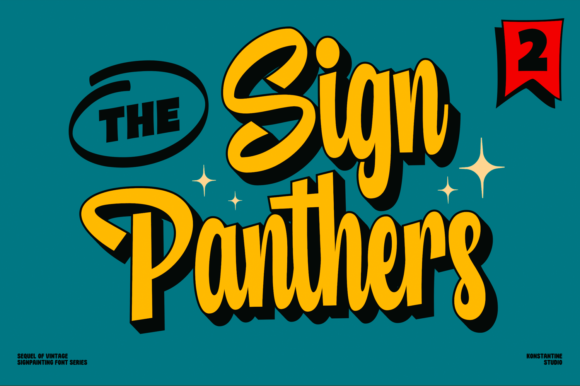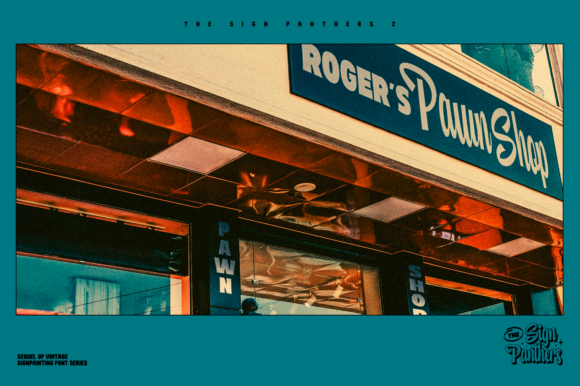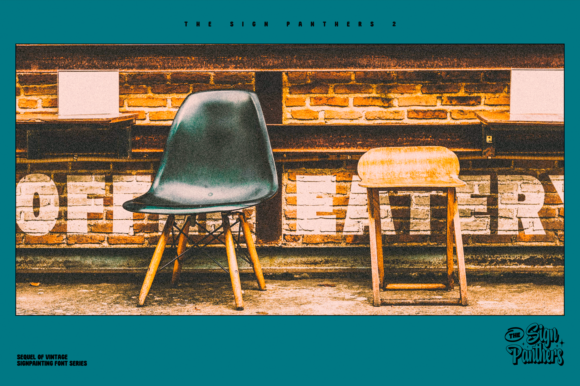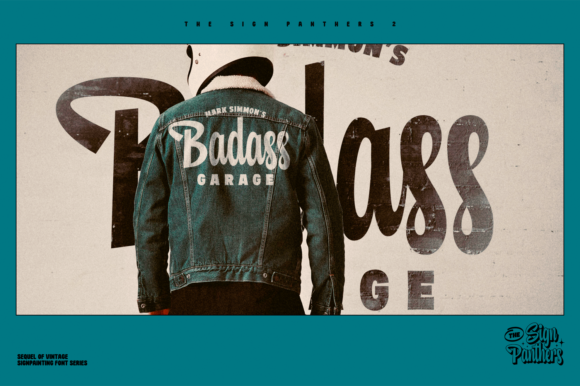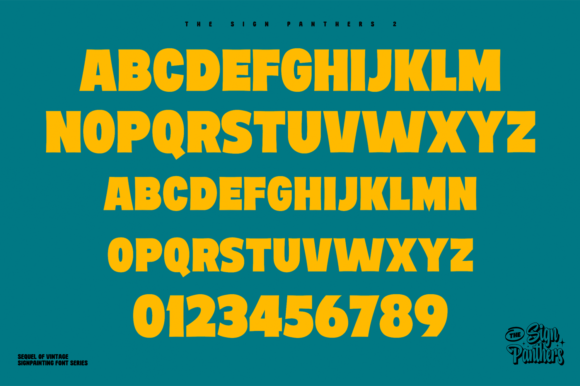
About Sign Panthers 2 Font
Sign Panthers 2 is a stunning and comprehensive trio font (script, dingbats and sans serif), ideal for giving your projects a branded but friendly feel. The two included styles can be combined together perfectly but are also beautiful on their own.